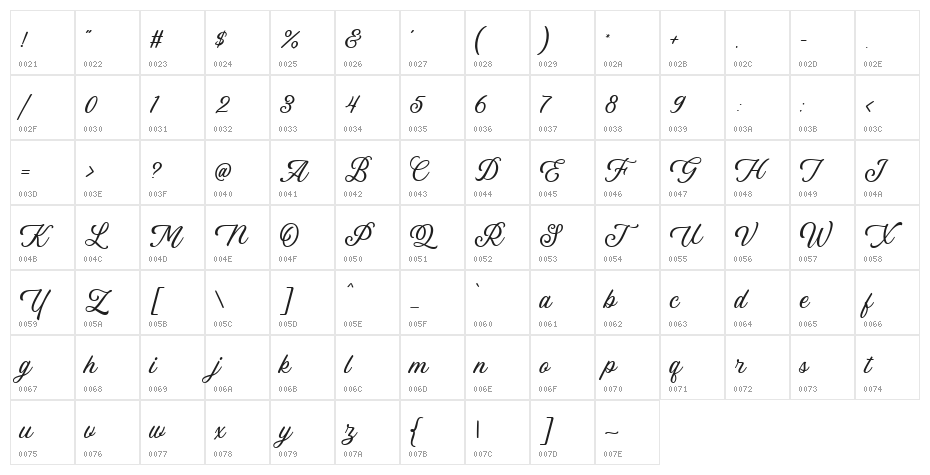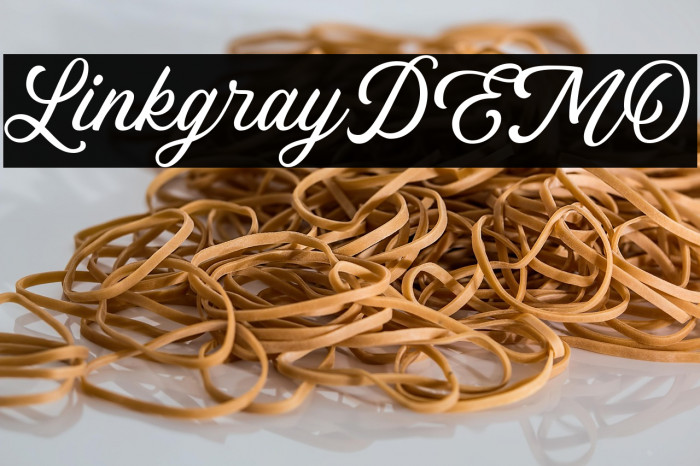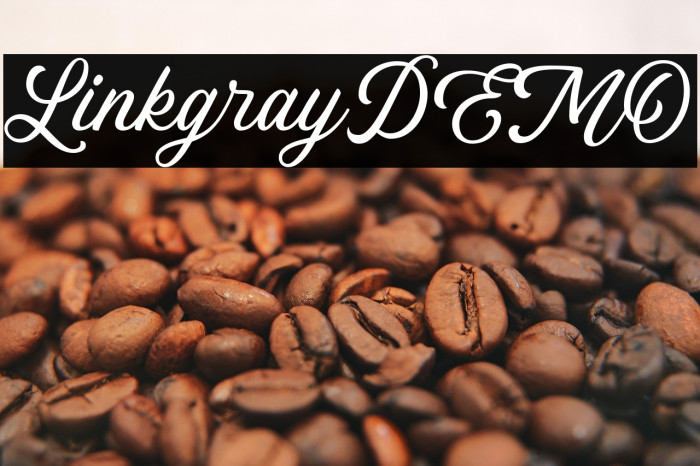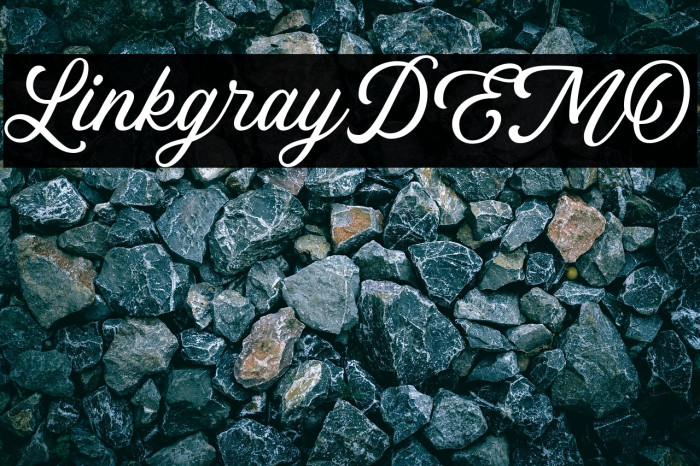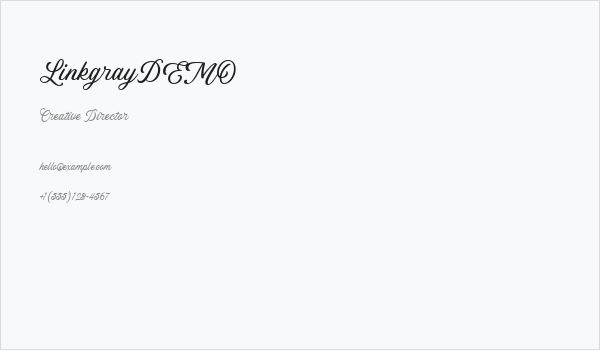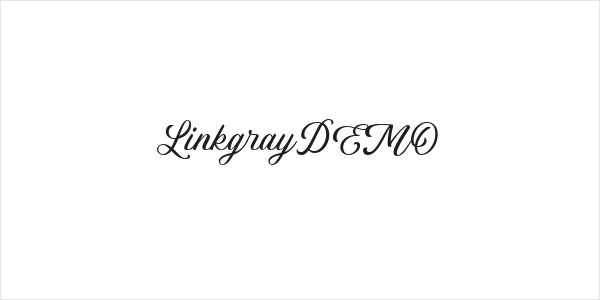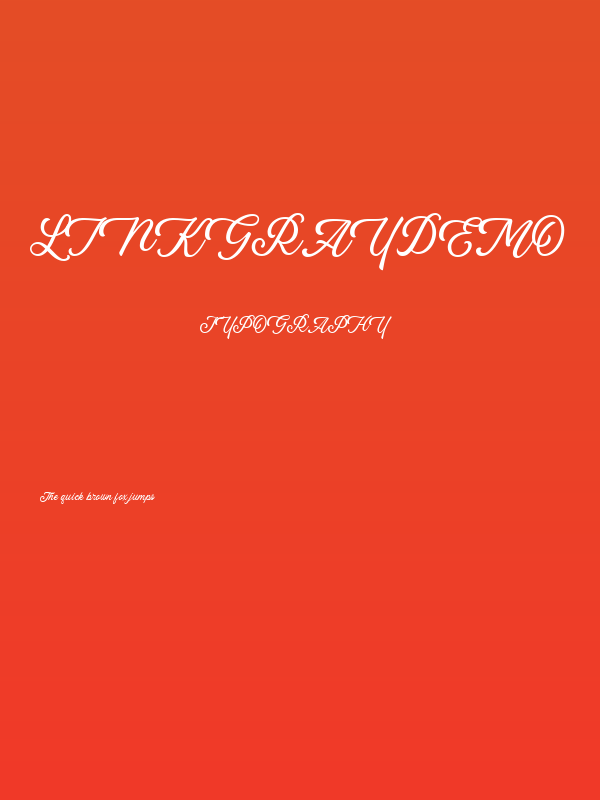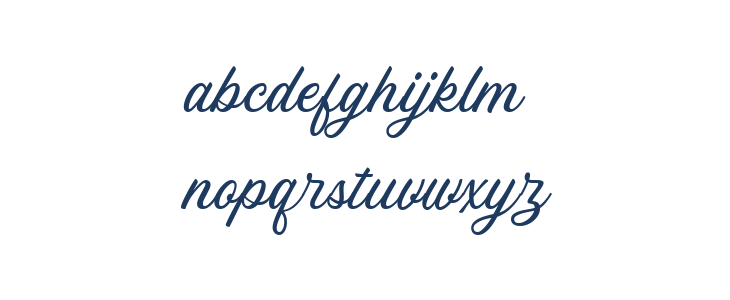
LinkgrayDEMO Font
LinkgrayDEMO Description
This elegant script font features a flowing, cursive style with smooth, connected strokes that give it a sophisticated and graceful appearance. The uppercase letters are ornate and decorative, while the lowercase letters maintain a consistent fluidity, enhancing readability. The numerals and special characters are designed to match the overall aesthetic, providing a cohesive look. This font is perfect for projects that require a touch of elegance and formality, such as invitations, branding, and decorative headings.
| Overall Style | Elegant, Decorative |
| Use Case | Headlines, Invitations, Branding |
| Proposed Projects | Ideal for wedding invitations, elegant branding, decorative headings, and formal event materials. |